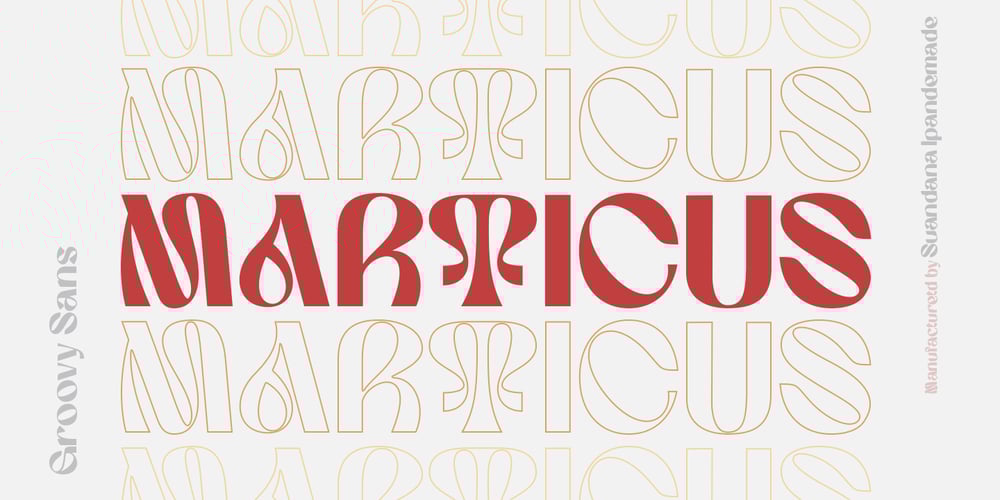
Marticus Font Family was designed by Pande Made and published by TypeClassHeroes. Marticus contains 1 styles and family package options. Introducing Marticus is a Groovy Sans, Comes with unique style and access your OpenType features to access the large selection of alternate letters and ligatures. Use this font for any branding, product packaging, invitation, quotes, t-shirt, label, poster, logo etc.Feature Uppercase & Lowercase Number & Symbol International Glyphs Multilingual support Alternative Ligature Feel free to drop us a message any time Cheers!!